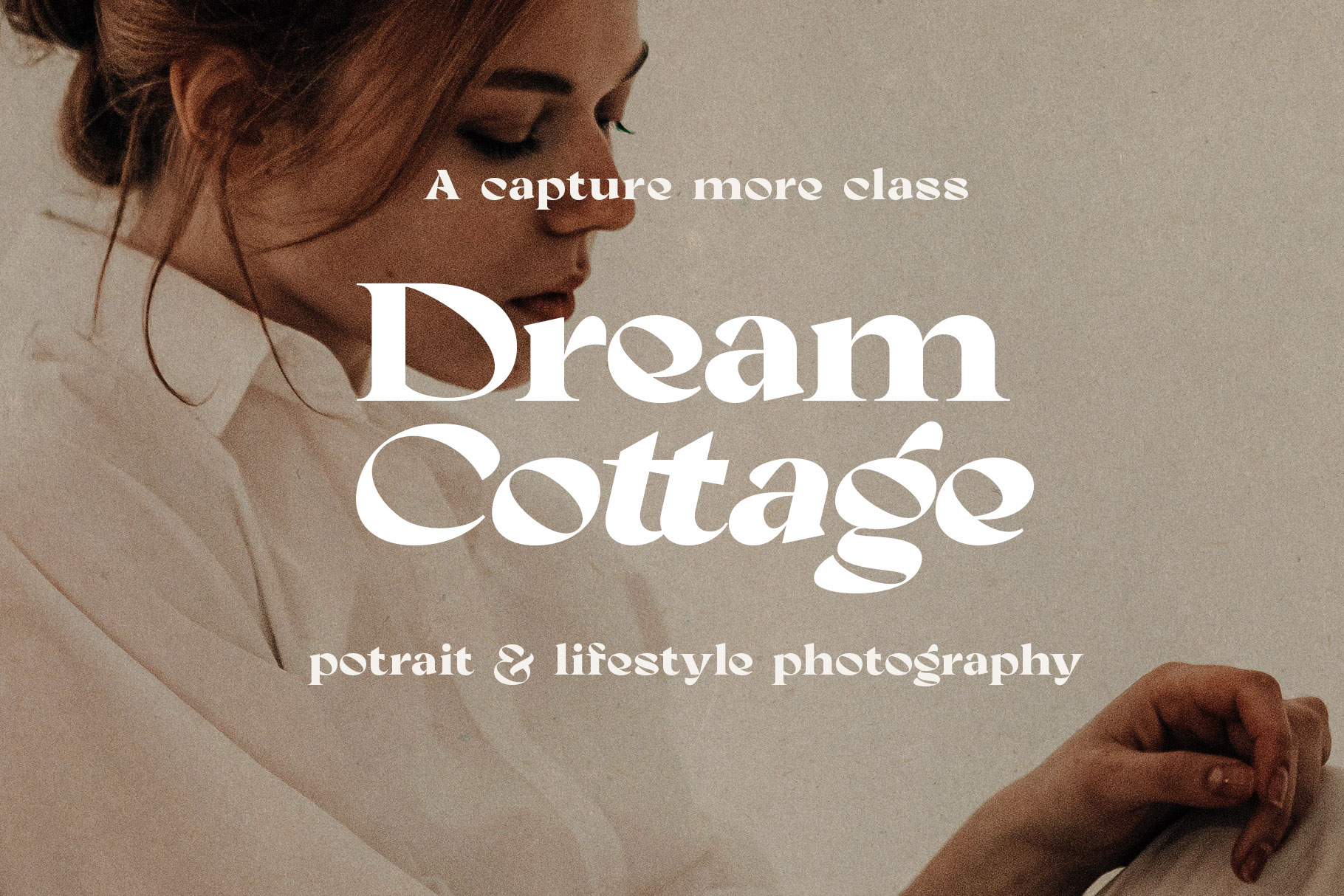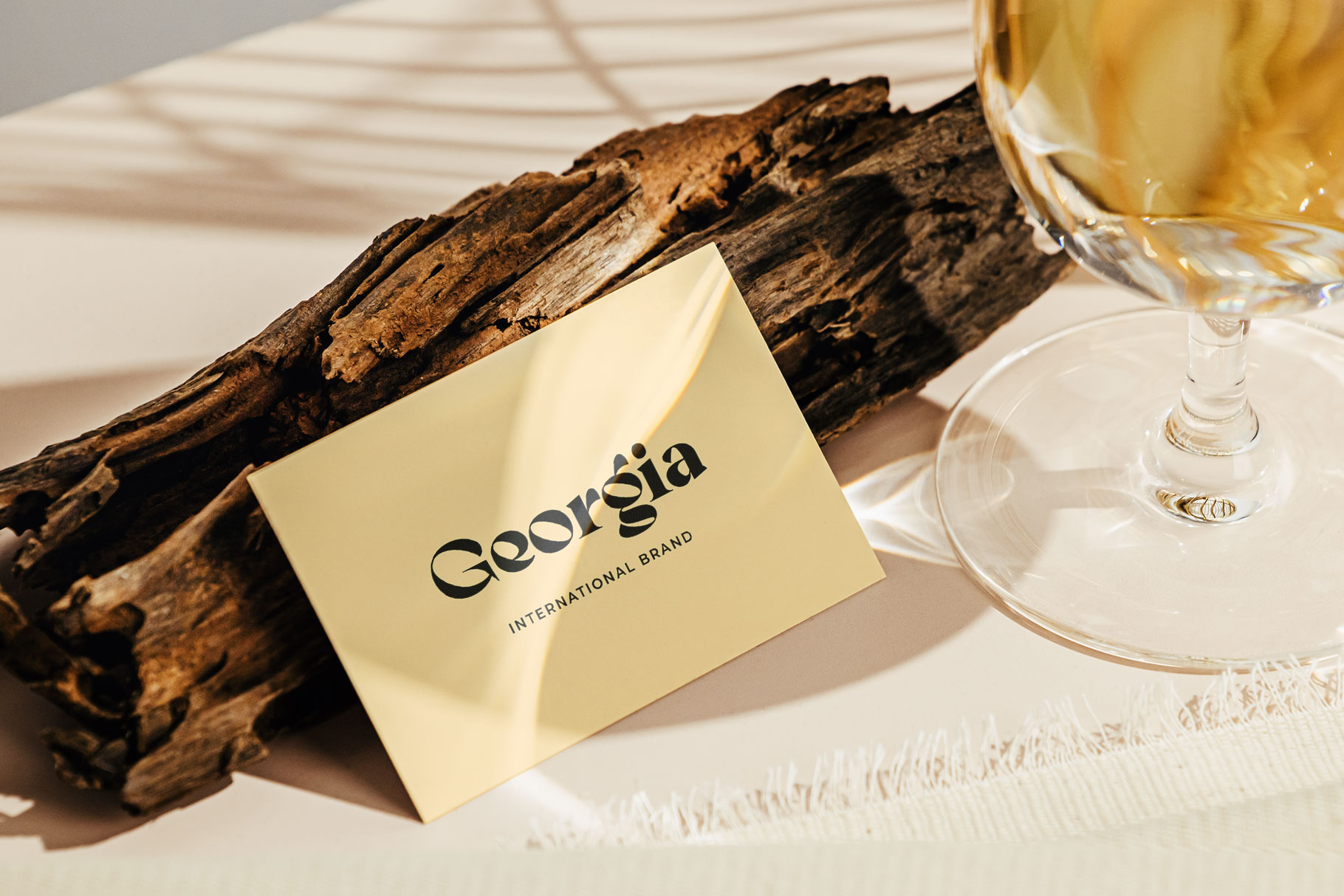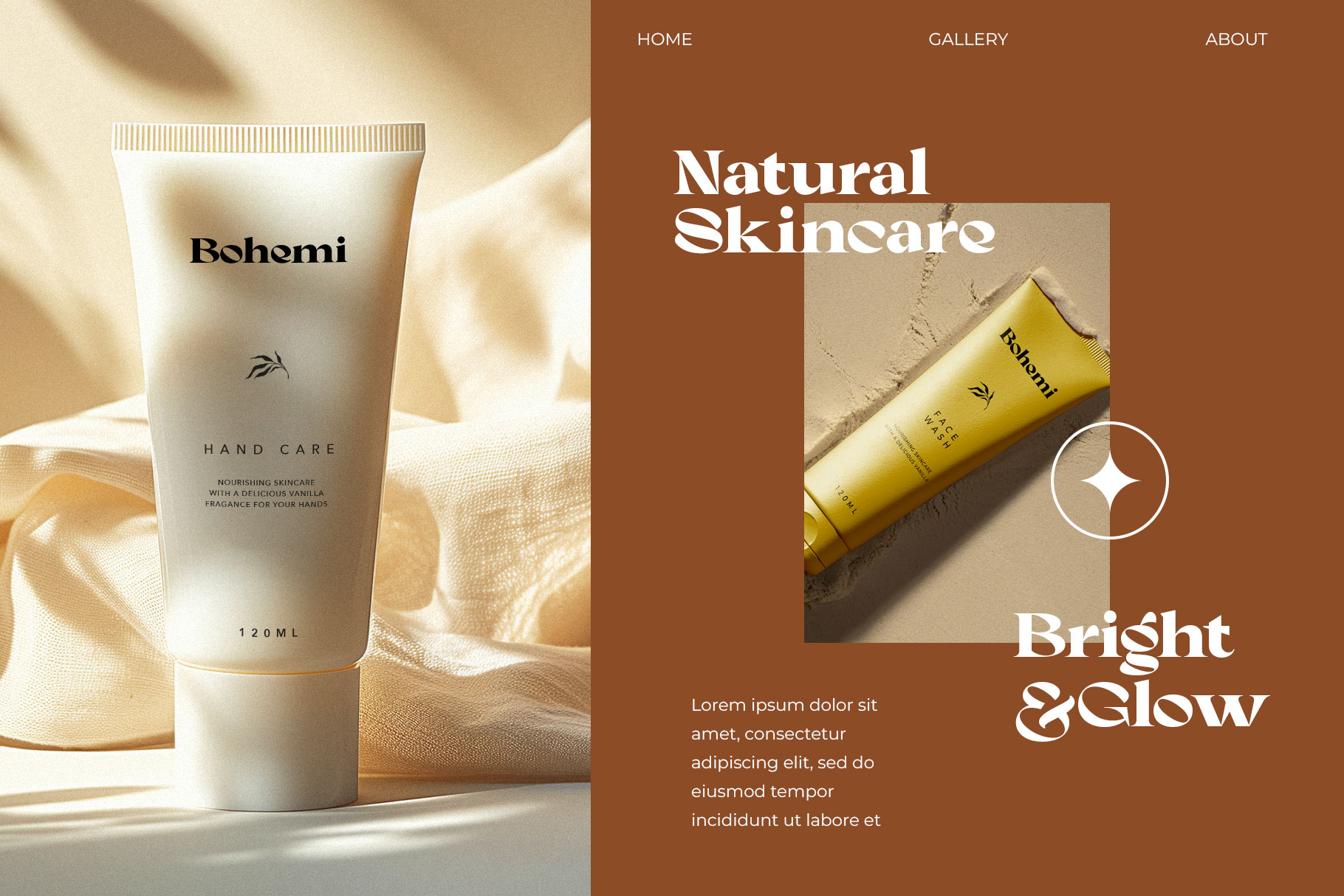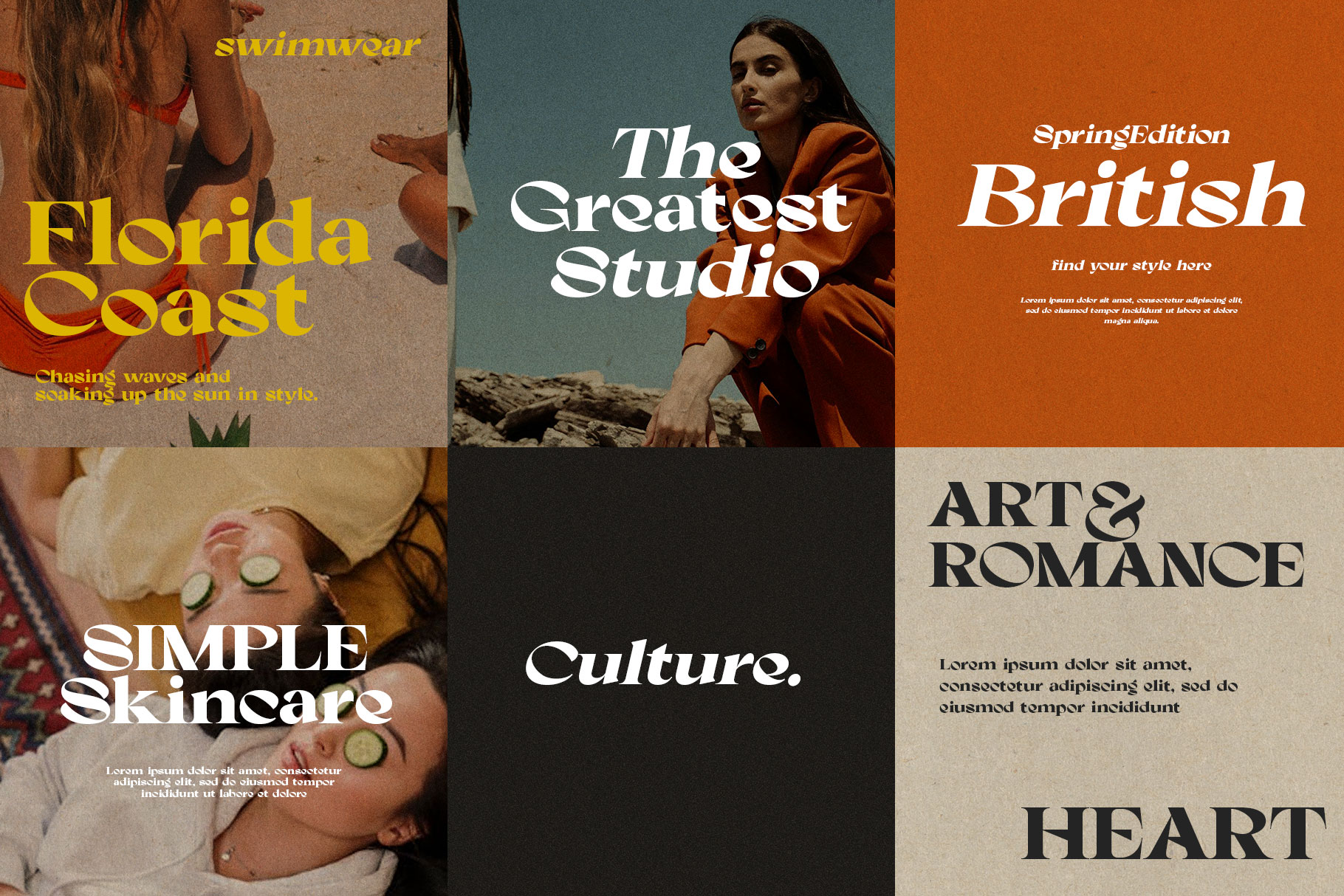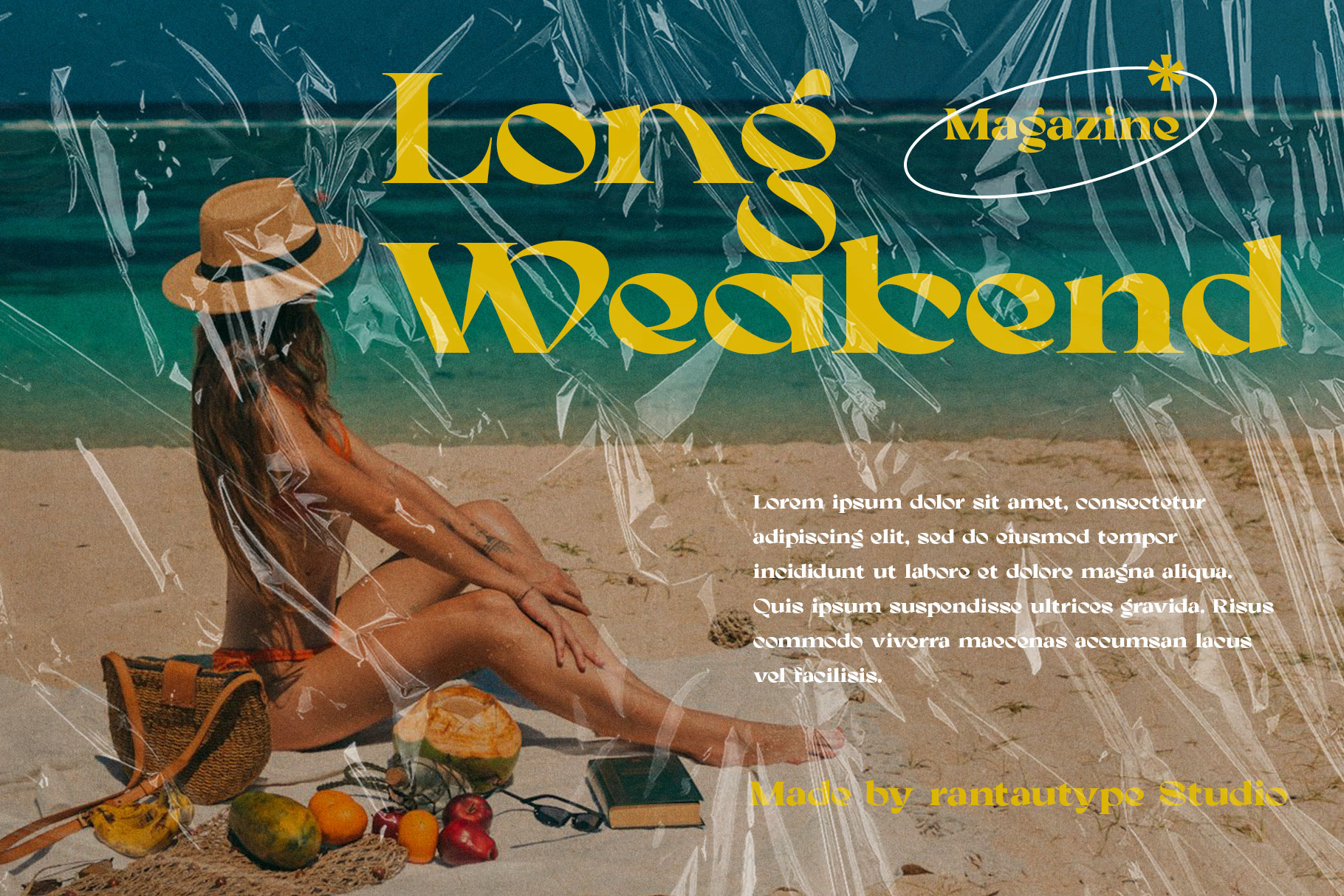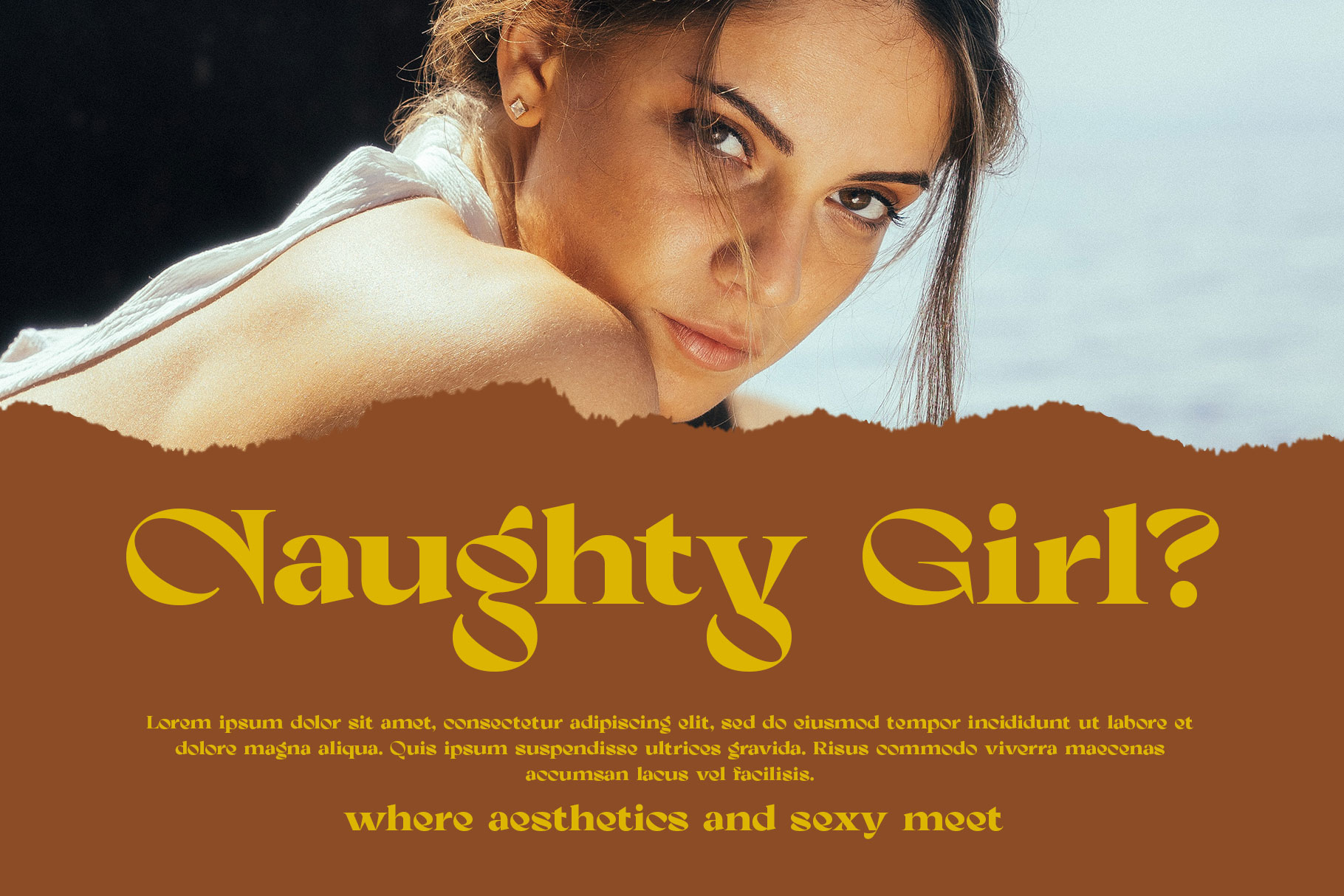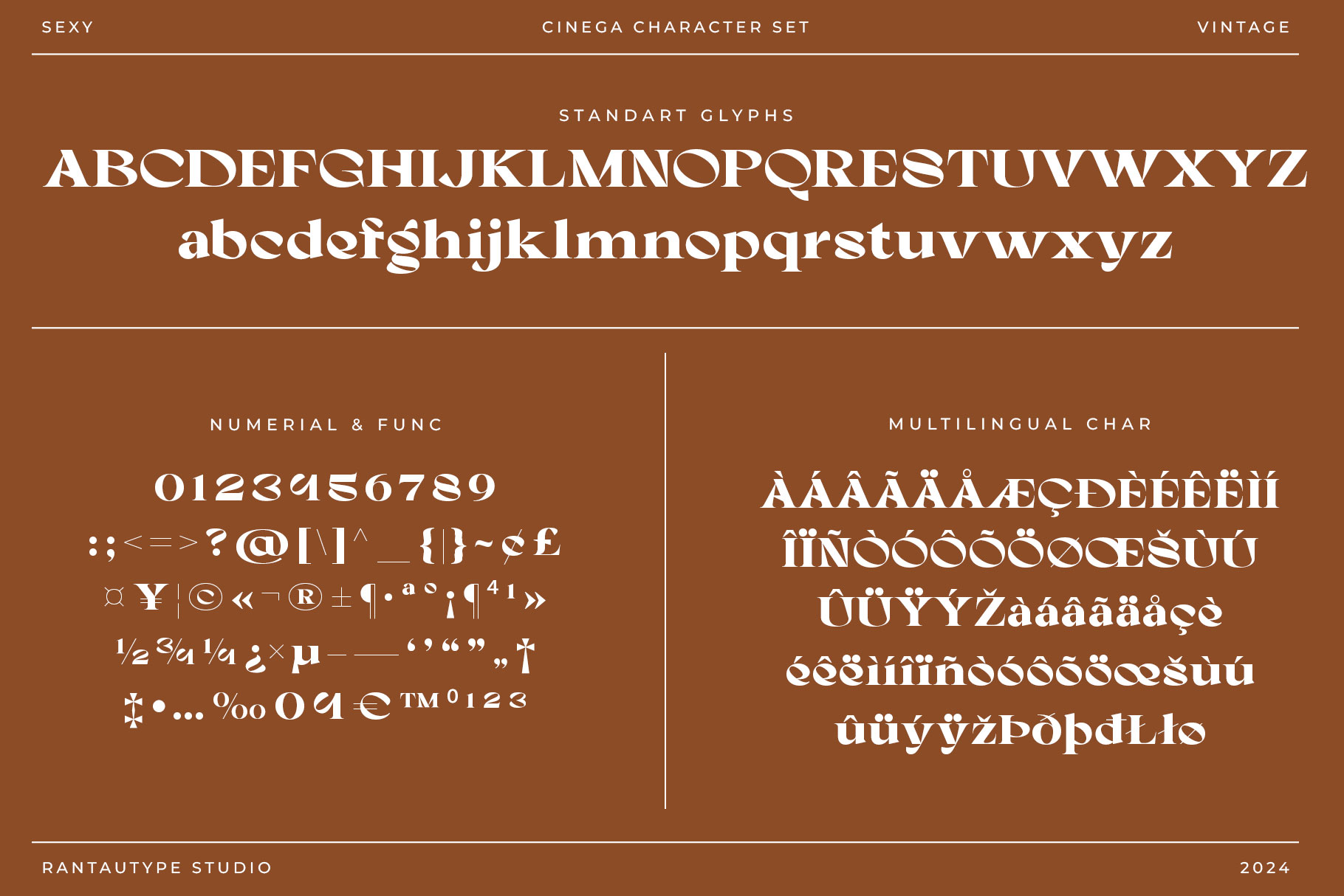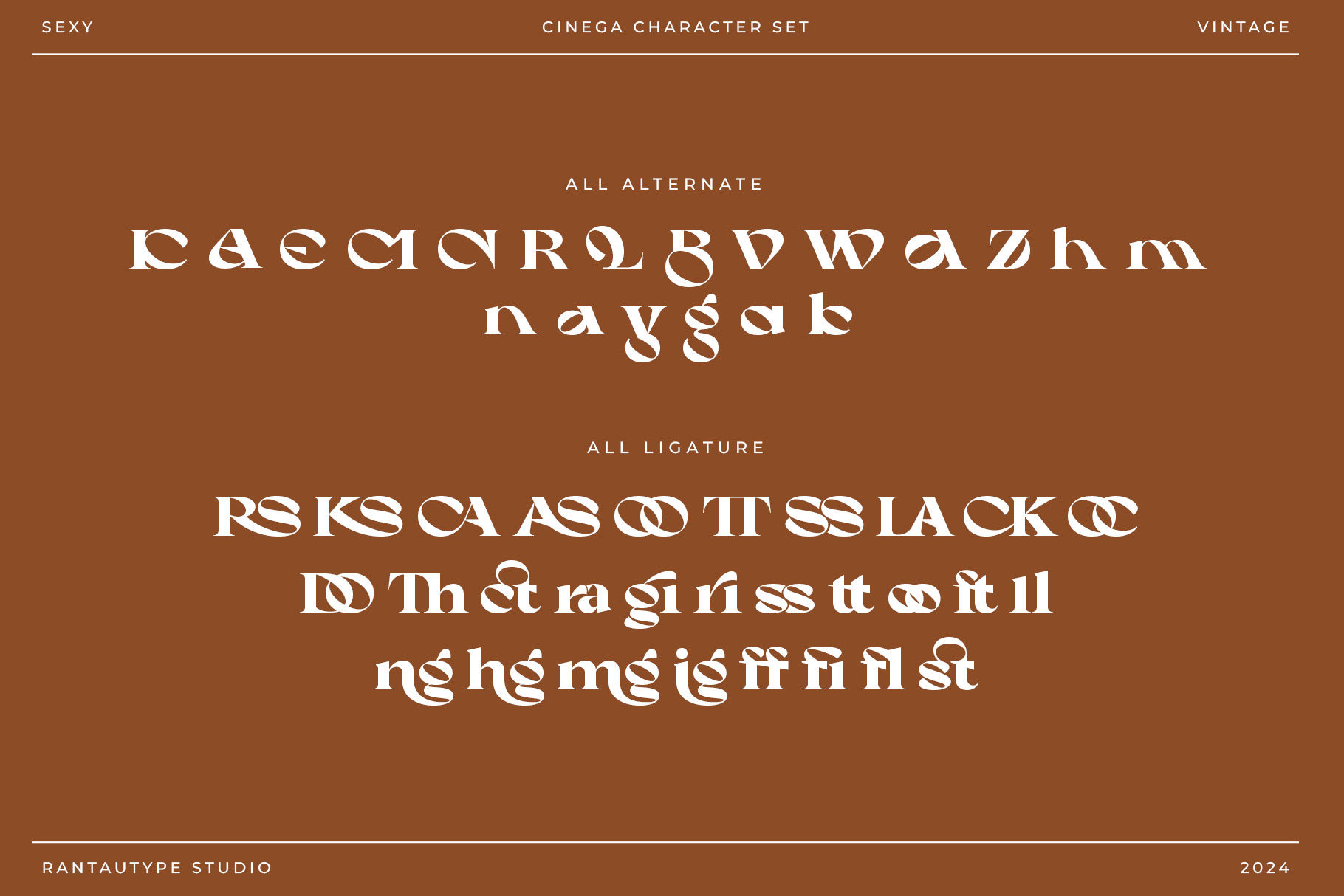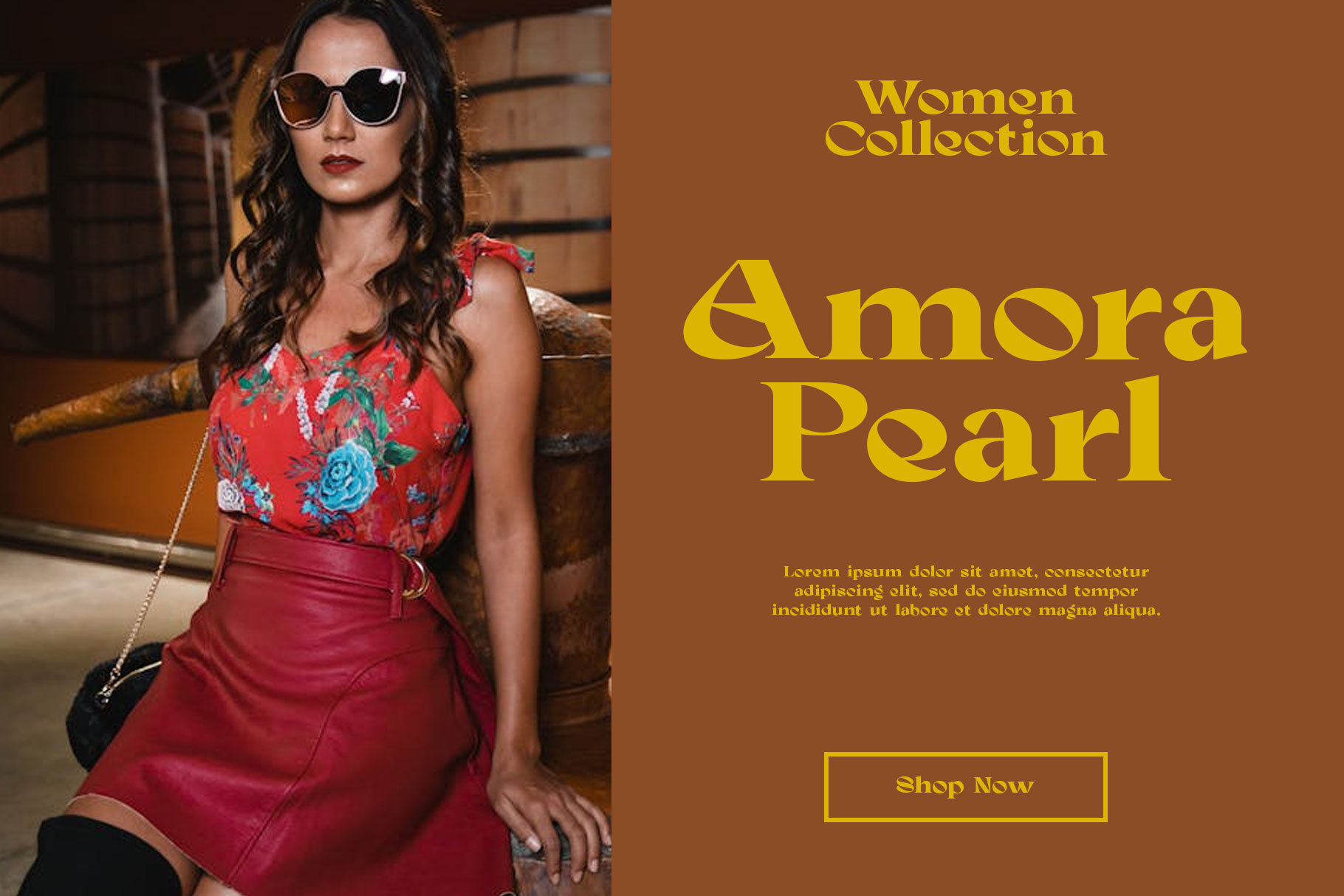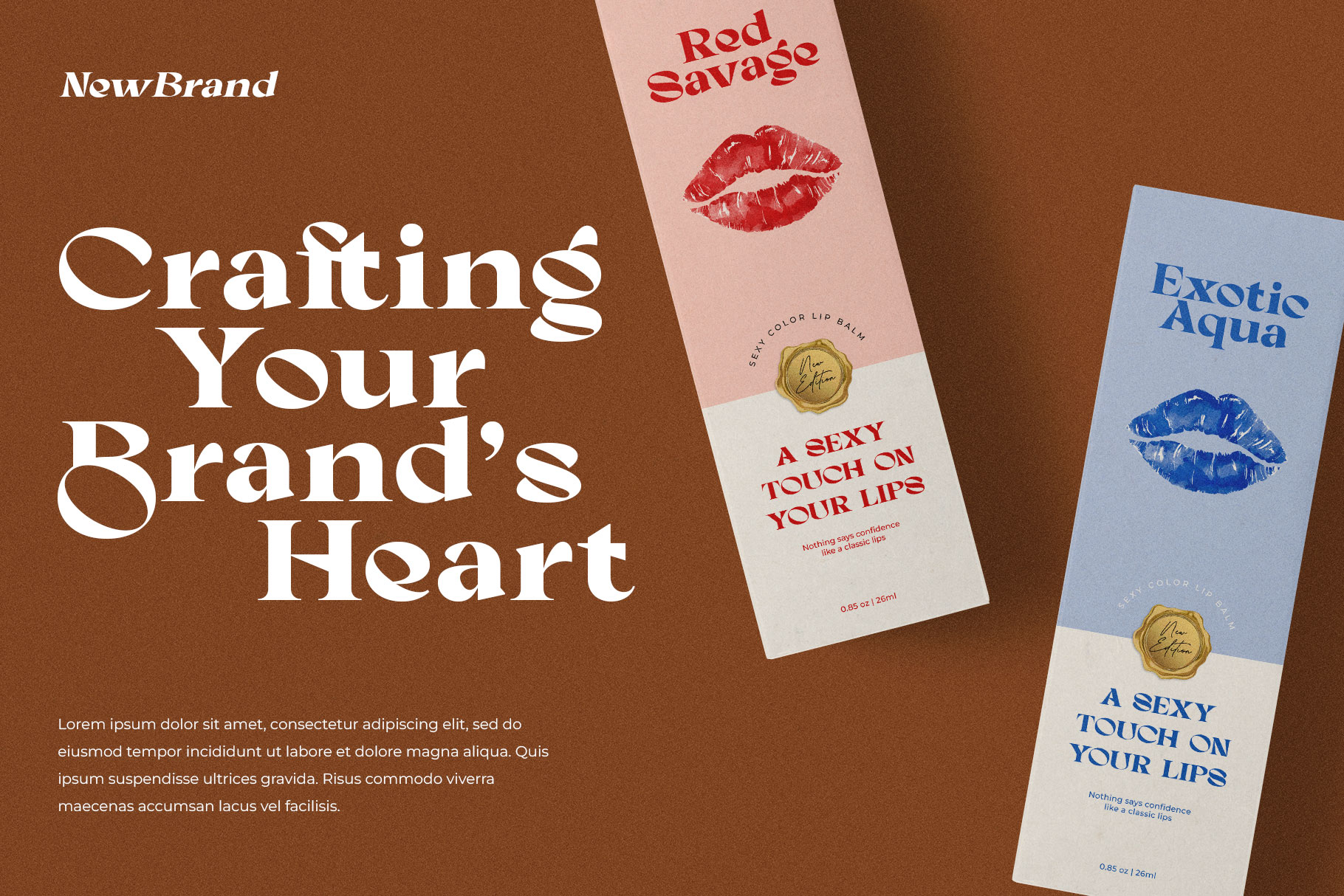
Cinega Sexy Vintage Serif Font
Cinega is sexy vintage serif font inspire by eighties lady magazine. Cinega bring contrast shape display with sexy curve old-fashioned character it make your design project more attractive and memoriable.
Cinega is a perfectly choice for any creative endeavor, chic, lifestyle design such as logos, advertisements, stationery, branding project, display and magazine, invitation, corporate brand, product design, label, business project and many other project with sexy vintage touch.